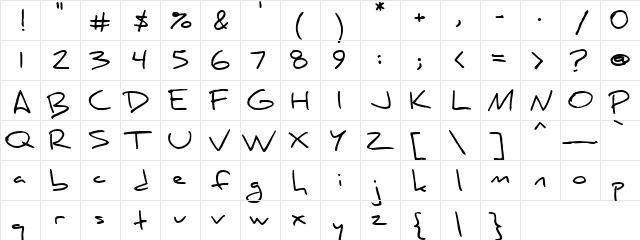
Night Storms Regular
Design Context for Night Storms Typeface
Night Storms is a composed and adaptable typeface that performs quietly and consistently across a wide range of design contexts.